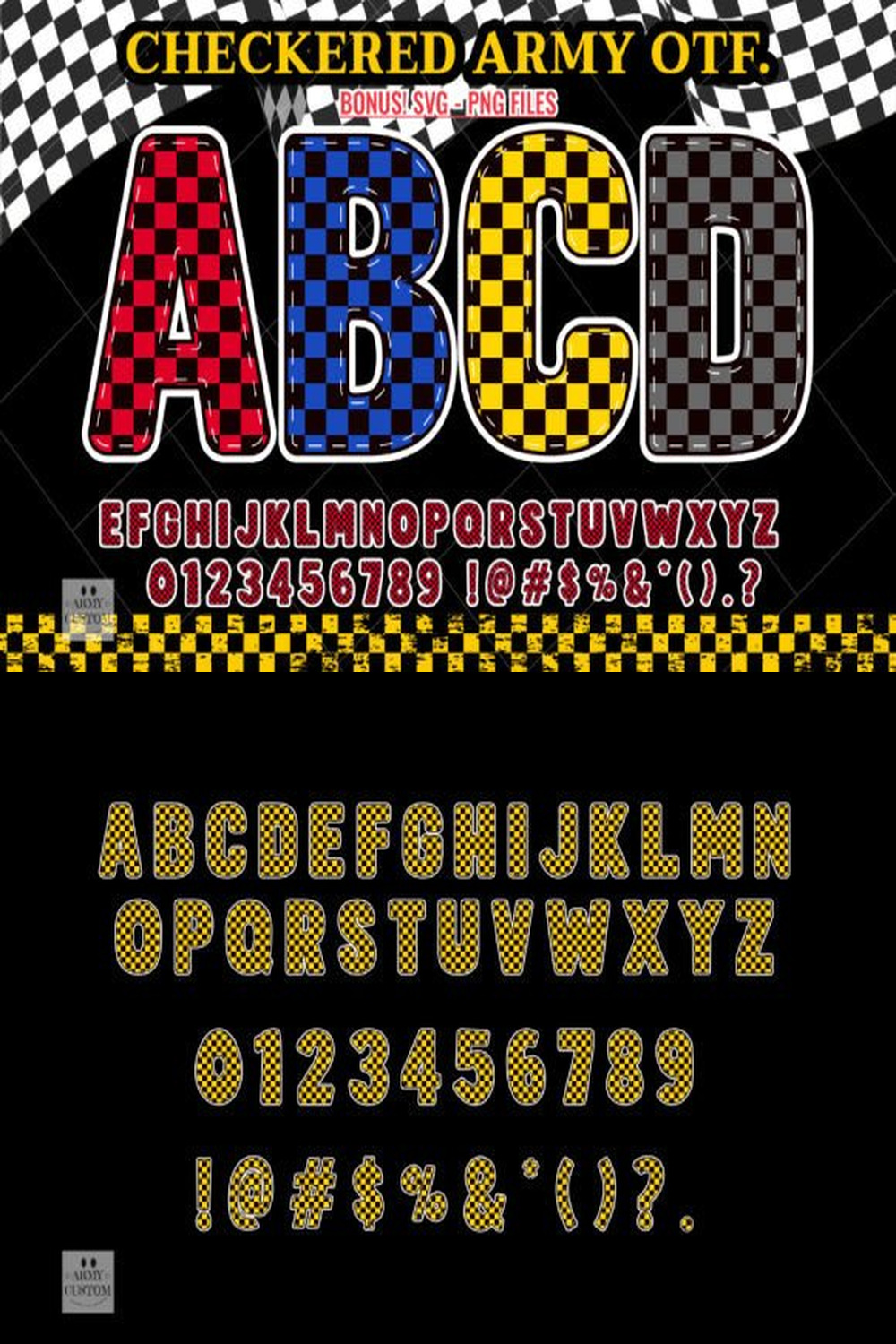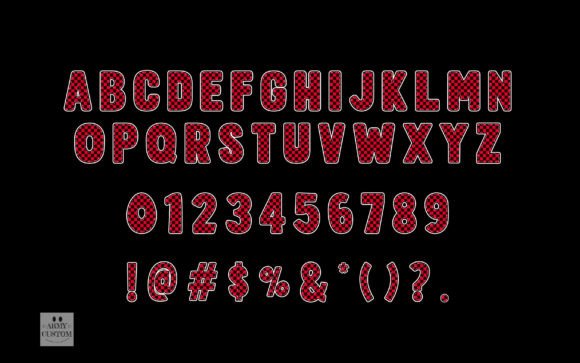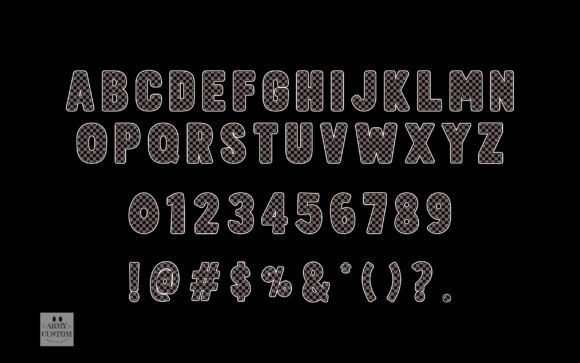
About the Checkered Font
Crafted with precision, the Checkered Font is ready to bring your ideas to life. Checkered is a decorative font with a checkered skin texture. This font is perfect for nature-themed designs and for children’s projects. No matter the topic, this font will be an incredible asset to your fonts’ library, as it has the potential to elevate any creation.